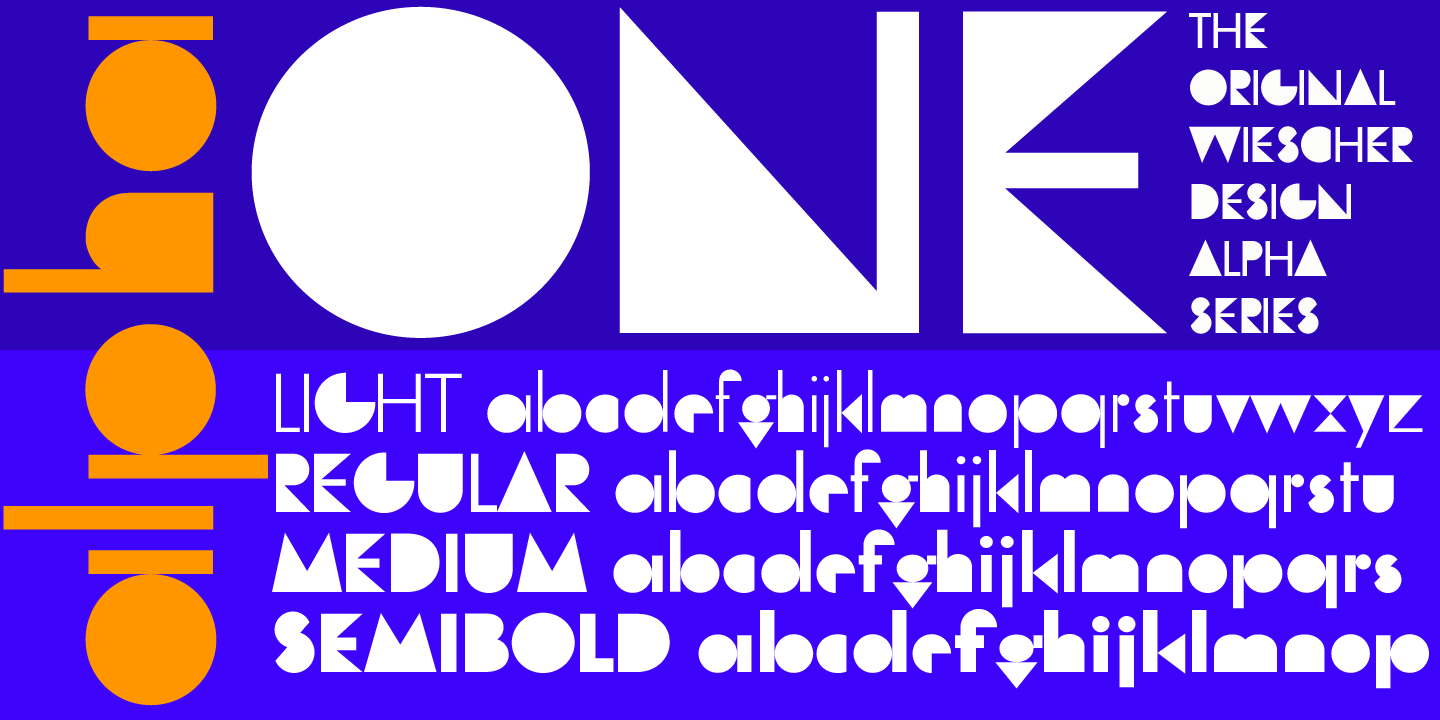
Alpha One Font demonstrates remarkable versatility across numerous design applications including military branding, tactical gear marketing, security company communications, law enforcement materials, defense contractor presentations, aviation industry signage, emergency services identity, and action entertainment promotions. Its authoritative character makes it particularly effective for projects requiring command presence while maintaining excellent readability, ensuring your designs convey strength and reliability across both digital platforms and mission-critical print materials.
What makes Alpha One Font truly exciting is its innovative approach to typography that perfectly captures the essence of military leadership and tactical precision through carefully engineered letterforms. The font features precisely crafted characters that incorporate subtle command elements and disciplined proportions that create striking authoritative impact while preserving optimal communication effectiveness. Its distinctive character construction combines military inspiration with modern functionality, creating text that feels both strategically powerful and professionally dependable. The font's optimized spacing and structured character relationships ensure superior performance across various tactical applications while maintaining the characteristic leadership that defines its commanding personality.
Alpha One Font presents a comprehensive type family designed to support diverse military and security design requirements. The family typically includes regular, medium, bold, and heavy weights, along with corresponding condensed variations that provide complete flexibility for tactical typography compositions. Many versions feature extended character sets with military symbols, tactical ornaments, and specialized glyphs that enhance authentic command aesthetic applications.
The Alpha One Font Free Download represents outstanding value for designers working on security-focused and military-themed projects across multiple sectors. Whether developing defense contractor branding, creating law enforcement communications, designing tactical equipment materials, or producing security training content, this font delivers consistent authority and memorable command presence. Its military characteristics make it particularly effective for industries including defense, security services, law enforcement, and tactical equipment sectors seeking to communicate leadership and operational excellence.
For maximum effectiveness, Alpha One Font combines powerfully with structured design elements and professional color schemes that reinforce its tactical message. Its commanding presence excels in headline applications while maintaining excellent performance in operational documentation contexts. The font's military sophistication and leadership appeal make it an essential tool for creating authoritative communications that resonate with audiences expecting discipline and strategic competence.